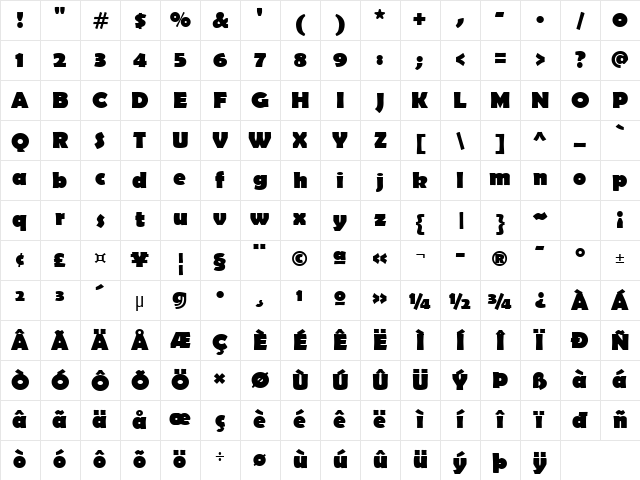
Berlin Sans FB Bold
Foundry: The Font Bureau, Inc.
Designer: David Berlow
Design Context for Berlin Sans FB
Berlin Sans FB is a composed and adaptable typeface that performs quietly and consistently across a wide range of design contexts. Its bold stroke weight gives it real presence on the page.